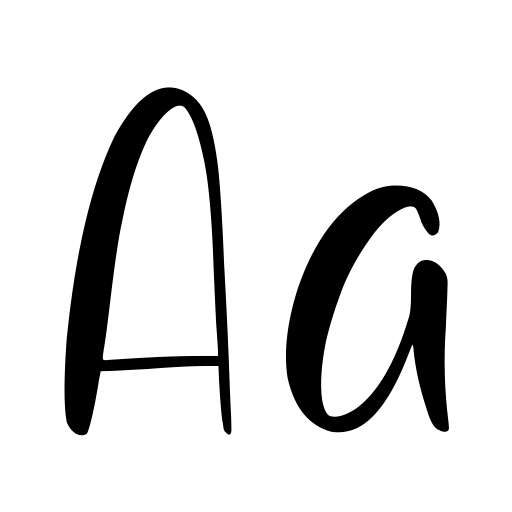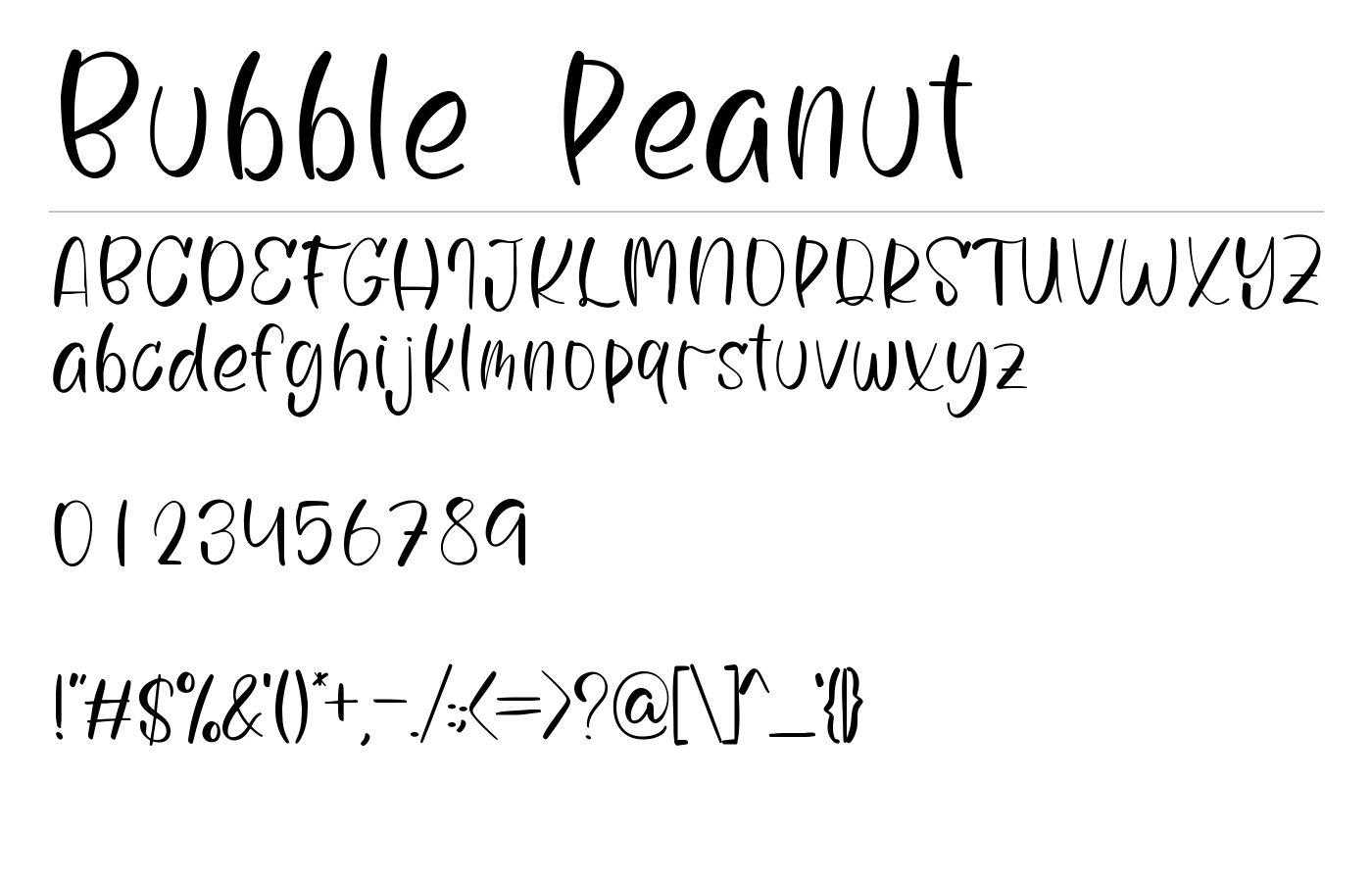
Bubble Peanut is a playful and casual handwritten sans serif font characterized by its tall, narrow letterforms and smooth, rounded strokes that give it a friendly and approachable vibe. Its light weight and airy spacing make it ideal for informal branding, children's projects, and creative designs where a fun, personal touch is desired. This font works best in headlines, logos, and packaging that seek a youthful, whimsical feel without sacrificing readability.
Bubble Peanut Font